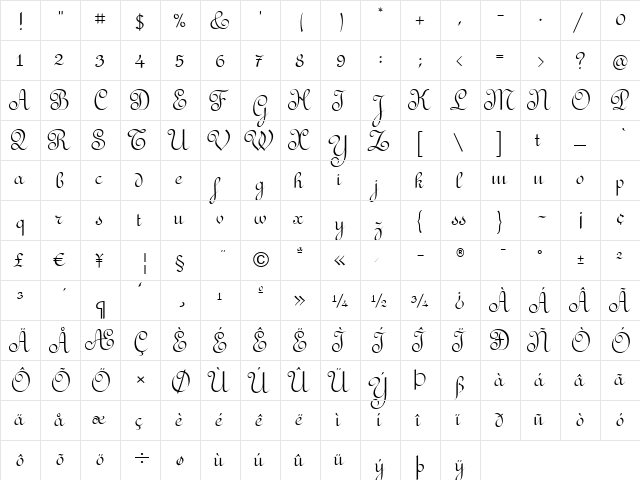
Redonda Fancy ITC Light
| Foundry | International Typeface Corporation |
Design Context for Redonda Fancy ITC Typeface
Redonda Fancy ITC is a composed and adaptable typeface that performs quietly and consistently across a wide range of design contexts. The delicate stroke weight brings airiness and refinement to layouts.